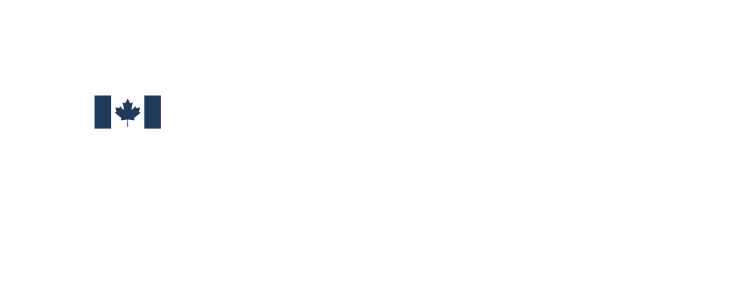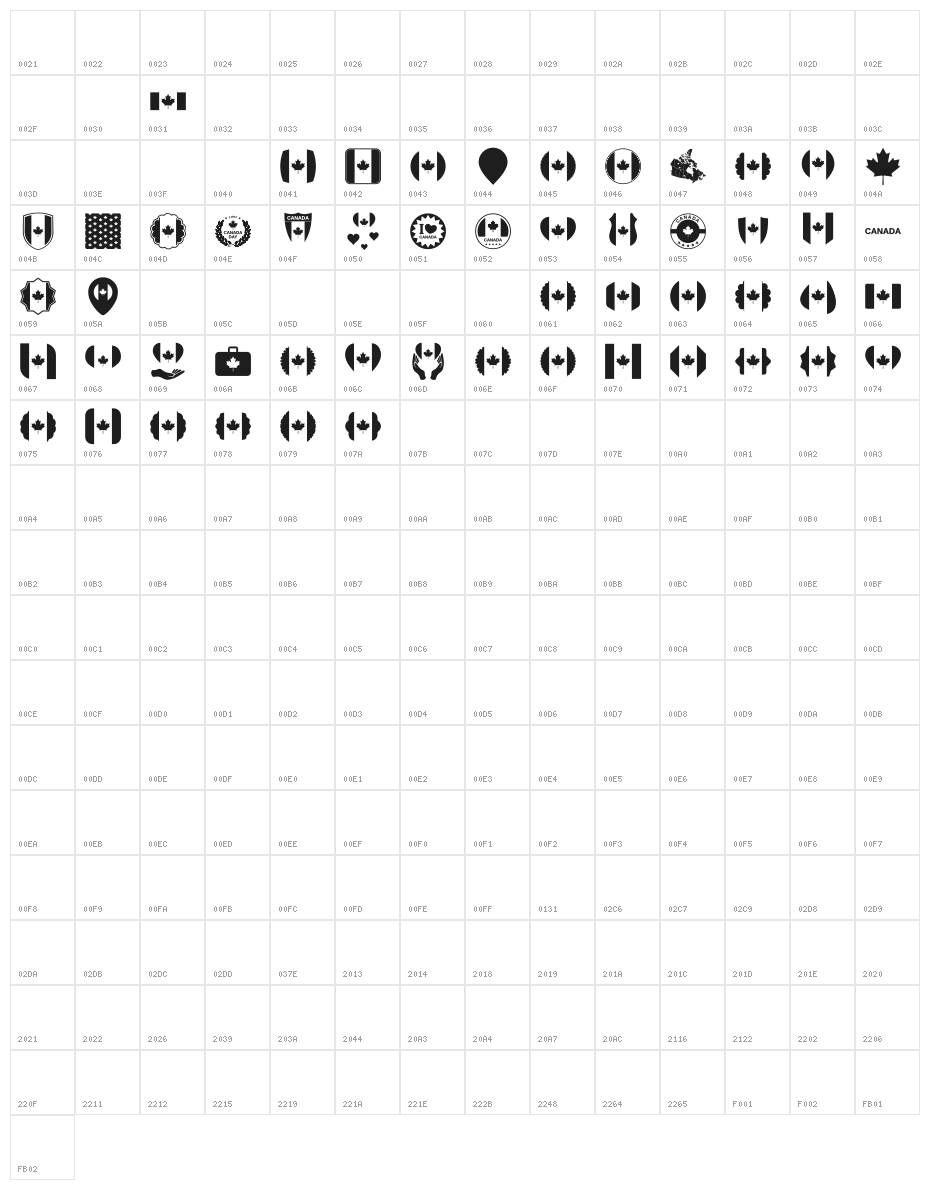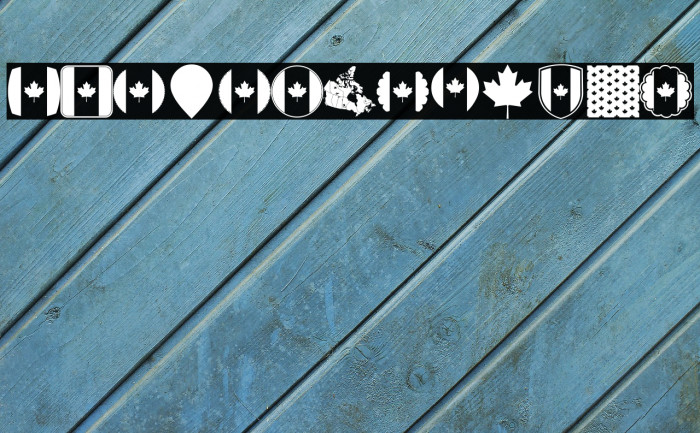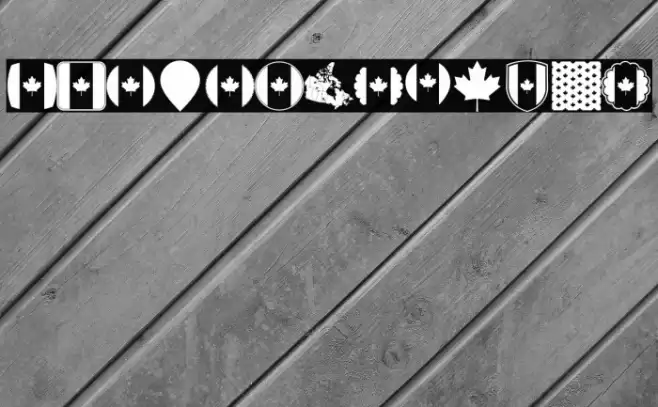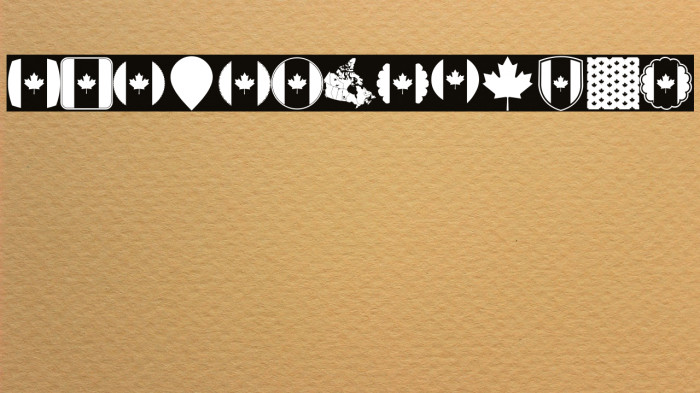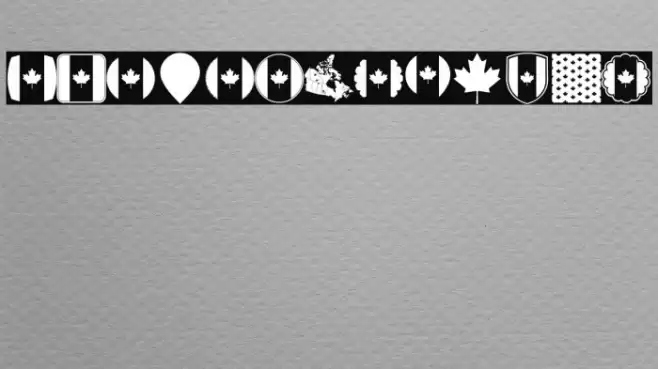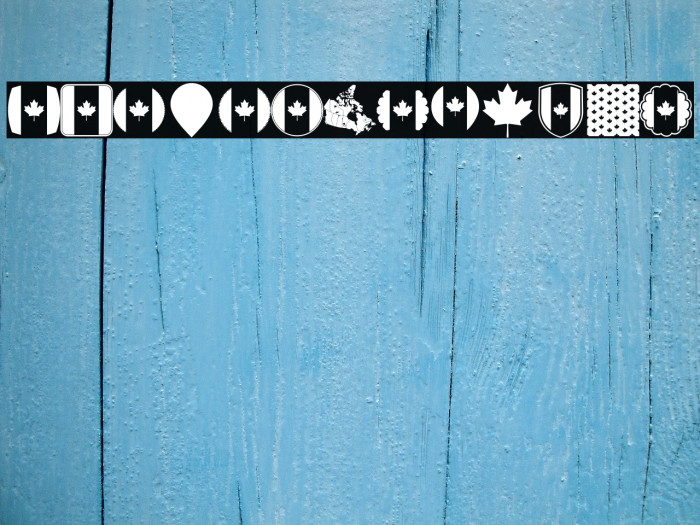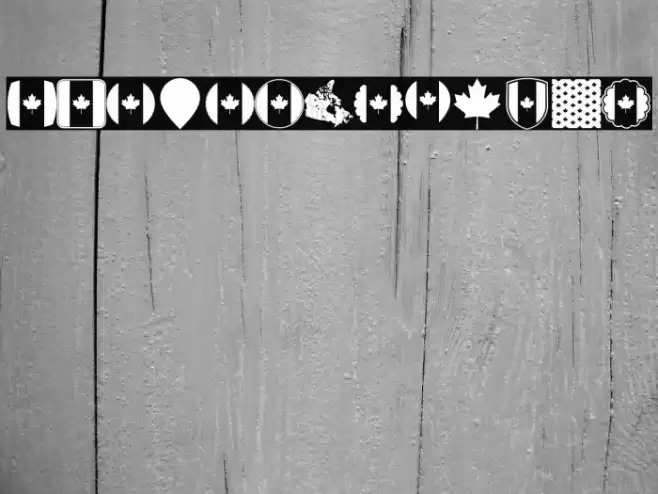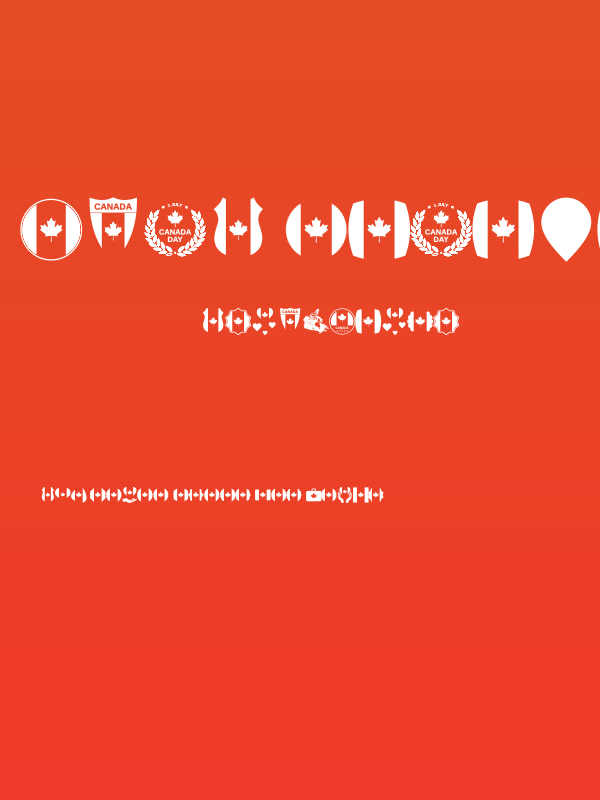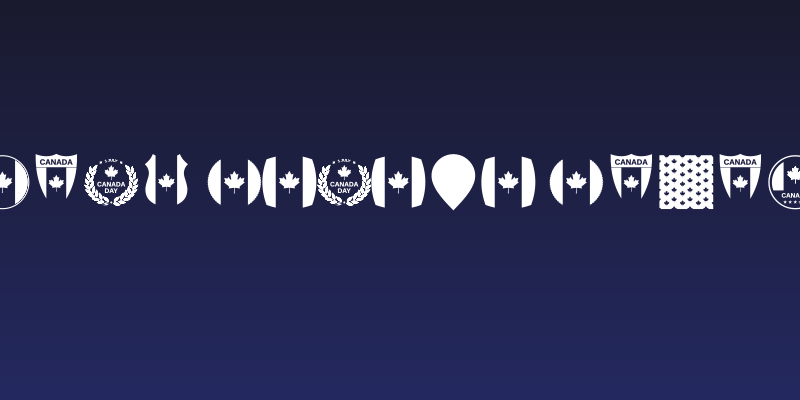
This is not a traditional font but rather a collection of symbols and icons themed around Canadian imagery. The design includes various representations of the Canadian flag, maple leaves, and other national symbols. These icons are bold and distinct, making them suitable for decorative purposes. The style is consistent with patriotic and nationalistic themes, emphasizing Canadian identity through visual elements rather than text characters.
| Use Case | Logos, Decorative elements |
| Proposed Projects | Ideal for projects requiring Canadian-themed decorations, such as event posters, national celebrations, or educational materials about Canada. |